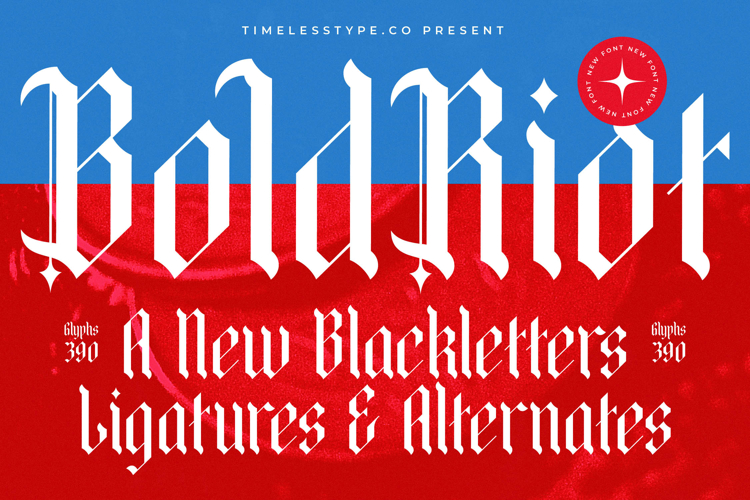
Bold Riot - New Blackletter Font
Ignite your designs with the commanding presence of Font Bold Riot - New Blackletter Font Blackletter, a striking interpretation of the timeless Blackletter aesthetic. This font blends historical grandeur with a distinctly modern edge, featuring bold, high-contrast letterforms that immediately capture attention. It delivers an unparalleled sense of authority and sophistication, making every headline and logo unforgettable.
Discover a world of creative possibilities with the meticulously crafted 390 glyphs, ligatures, and alternates within Font Bold Riot - New Blackletter Font Blackletter. Its sharp angles and flowing curves are expertly balanced, offering designers exceptional flexibility and customization. This comprehensive character set ensures your projects will possess a truly unique and polished identity, setting them apart from the competition.
Embrace global appeal with this font's expansive capabilities. With its extensive multilingual support, Font Bold Riot - New Blackletter Font Blackletter adapts seamlessly across global markets, making it incredibly versatile for international projects. Its robust construction ensures readability and impact in diverse linguistic contexts, truly a worldwide design asset.
Elevate your visual communication to an iconic status. Font Bold Riot - New Blackletter Font Blackletter is perfect for luxury branding, high-end packaging, dynamic editorial layouts, music artwork, and event posters that demand a powerful statement. Choose this font to infuse your projects with an unmistakable character and historical gravitas, ensuring a memorable and impactful visual experience.